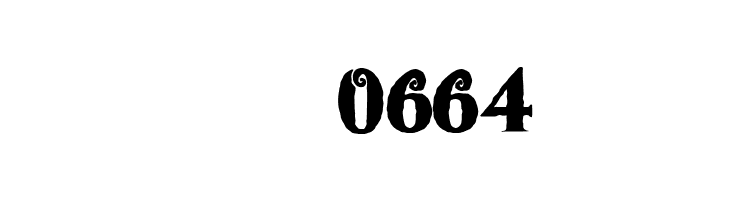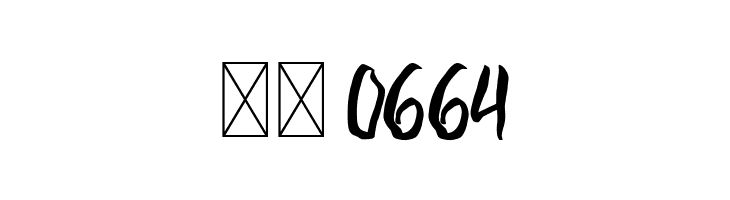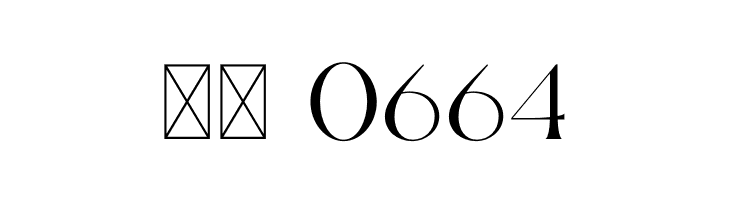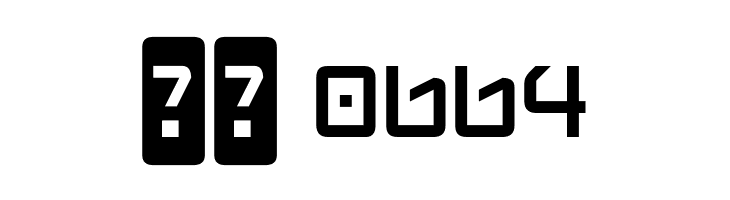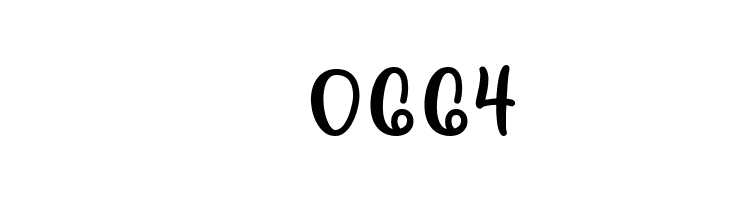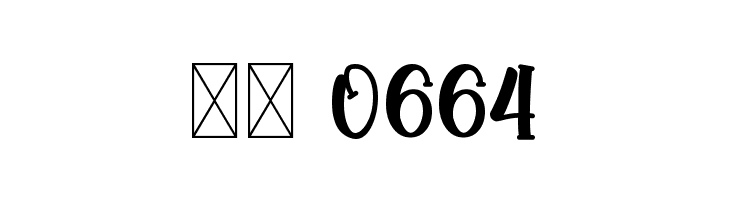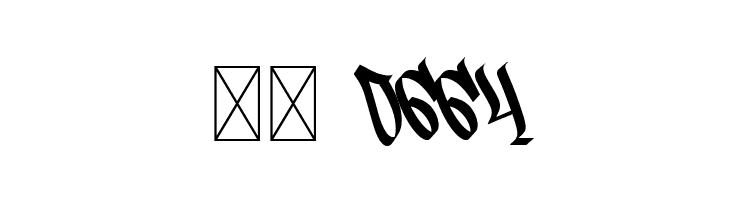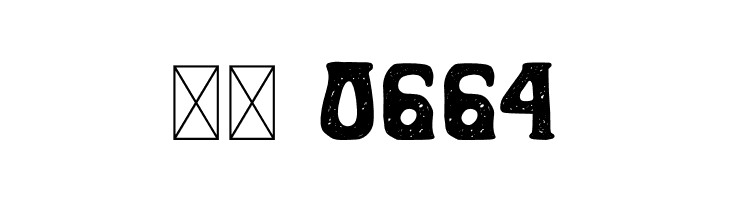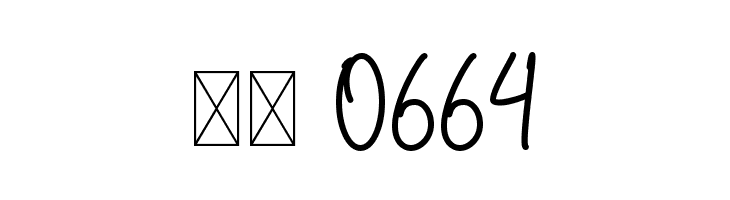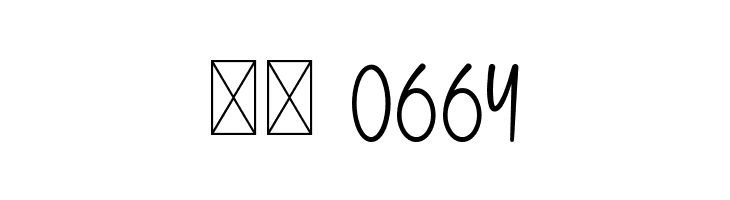
A bold, geometric font with a modern and futuristic style.
A bold, italic font with a modern and dynamic style.
A lively handwritten font with dynamic strokes and a playful energy.
A playful, bold font with a hand-drawn, friendly appearance.
A playful, cursive font with smooth, flowing strokes and elegant charm.
A playful, hand-drawn font with irregular, whimsical letterforms.
A playful, bold, and hand-drawn style font with irregular strokes.
Casual handwritten script font.
A bold, playful font with a bubbly, cartoonish style and exaggerated curves.
Hand-drawn decorative font with wildflower motifs.
A bold, graffiti-inspired font with sharp, angular lines and dynamic style.
A dynamic, handwritten font with bold, sweeping strokes and artistic flair.
A bold, cursive script font with dynamic and expressive strokes.
A playful, hand-drawn font with bold, irregular strokes and a whimsical style.
Ultra-condensed, bold font with high contrast and modern appeal.
A playful, bold handwritten font with rounded edges and consistent strokes.
A playful, handwritten font with smooth, flowing curves and a casual style.
A playful, bold handwritten font with smooth, rounded edges.
A bold, brush-style font with dynamic, handwritten characteristics.
Casual handwritten script with playful loops and fluid strokes.
A futuristic, geometric font with sharp angles and consistent stroke width.
A whimsical, handwritten script with tall, narrow, and playful strokes.
An elegant serif font with a blend of classic and modern elements, featuring refined serifs and graceful curves.
A whimsical, curly font with a playful, hand-drawn style.
A bold, decorative font with medieval-inspired serifs and ornate details.
A whimsical, decorative font with playful curves and gothic flair.
A whimsical, decorative font with playful, gothic-inspired serifs.
A whimsical, hand-drawn font with a playful and textured design.
A playful, casual handwritten font with smooth curves and a friendly appearance.
A bold, brushstroke font with dynamic and expressive characters.
Ornate, festive script with decorative swashes and high contrast.